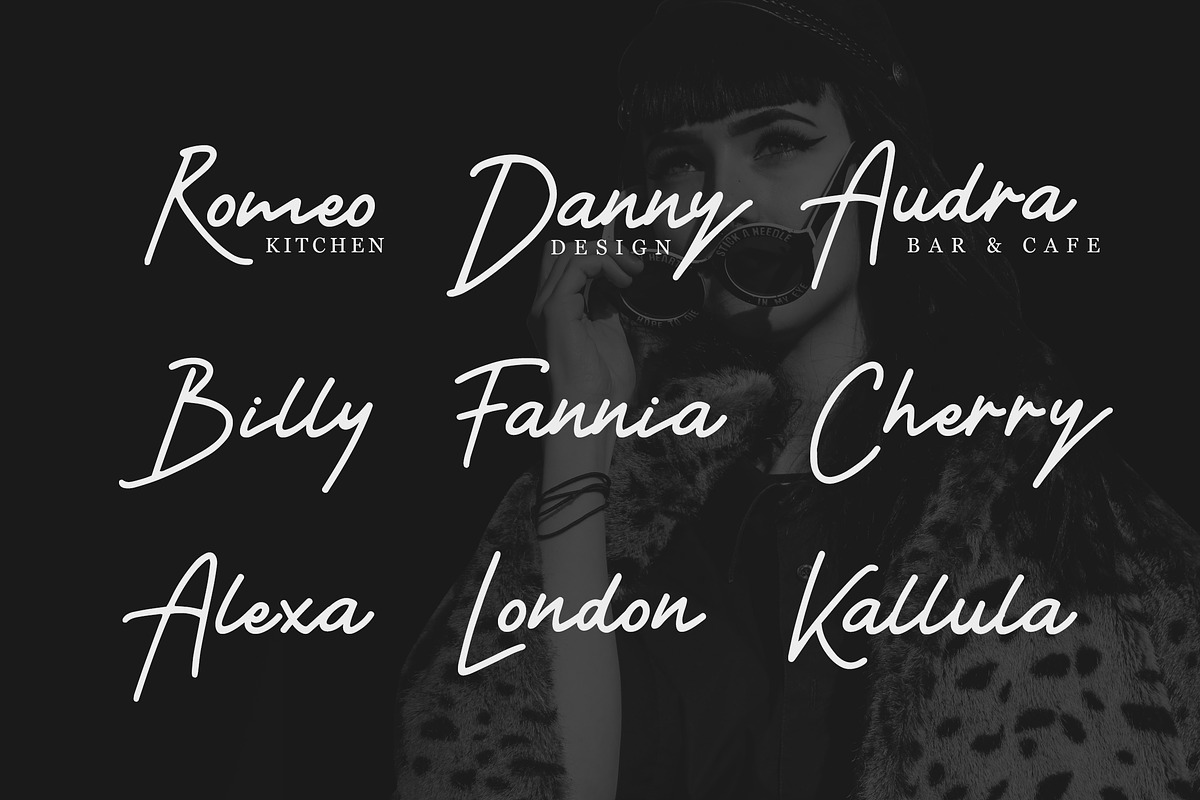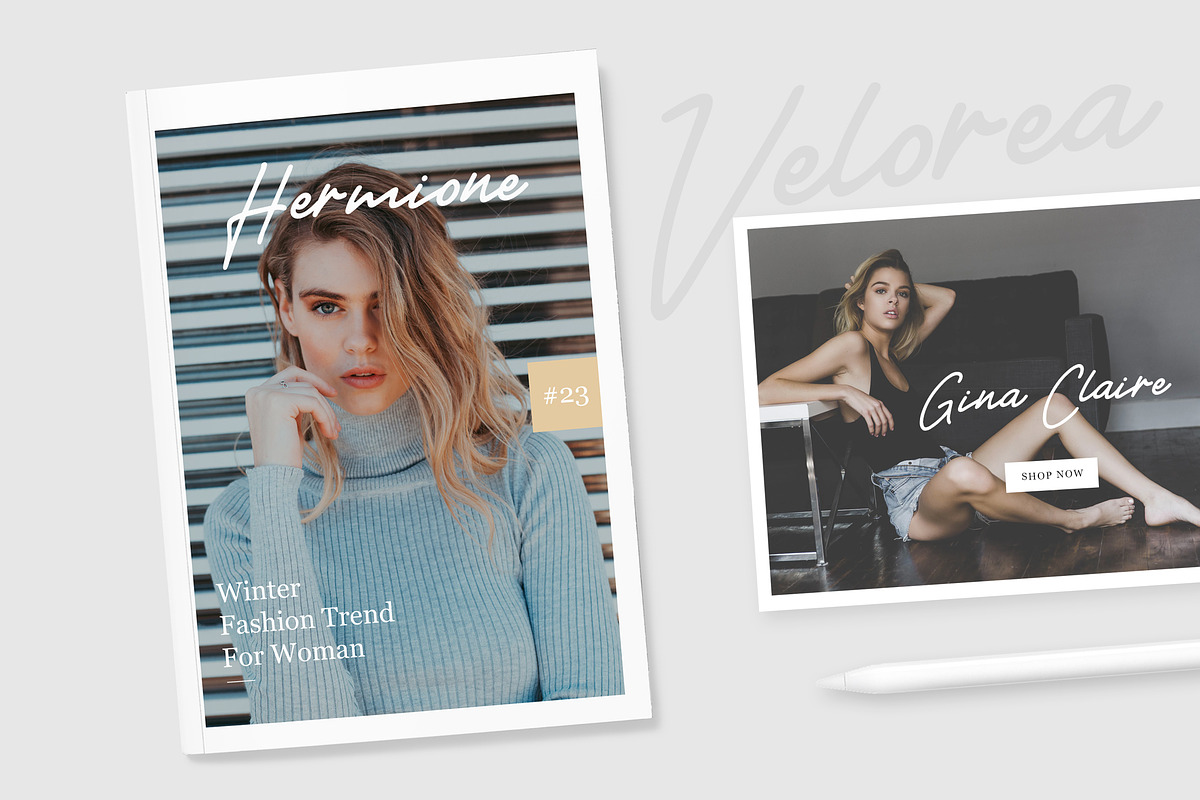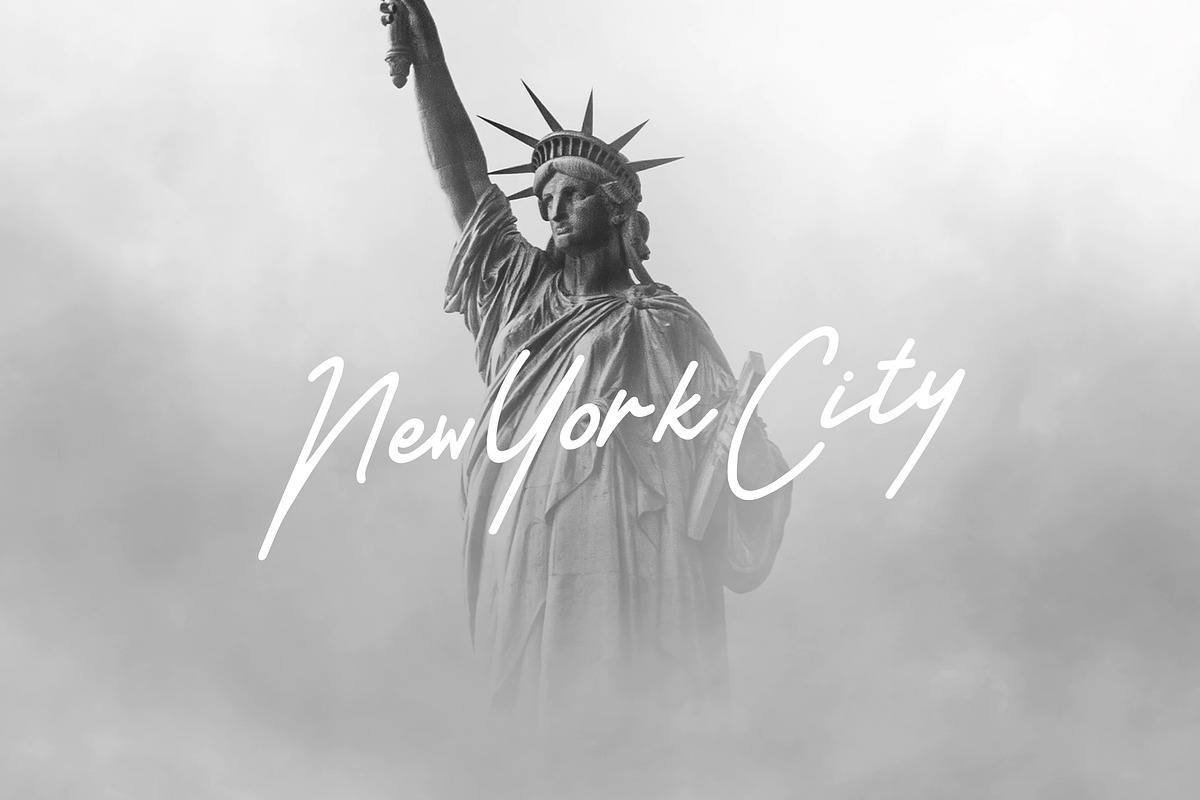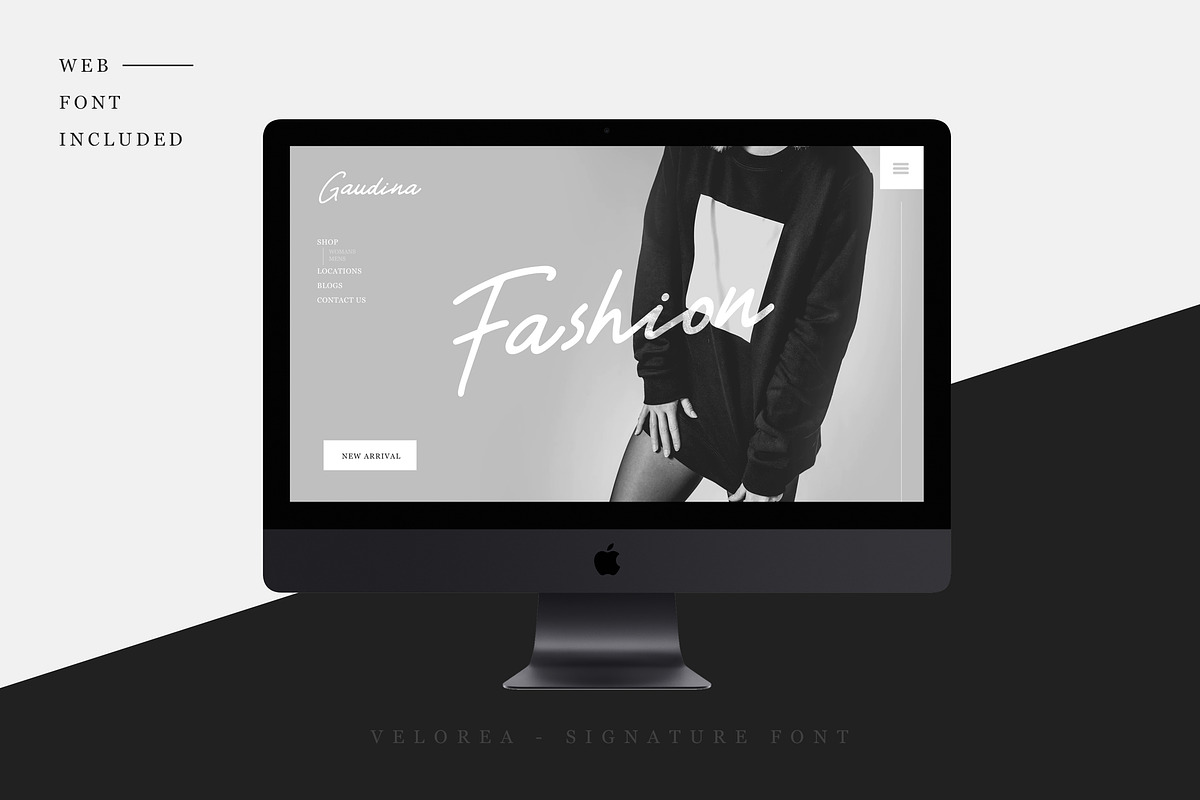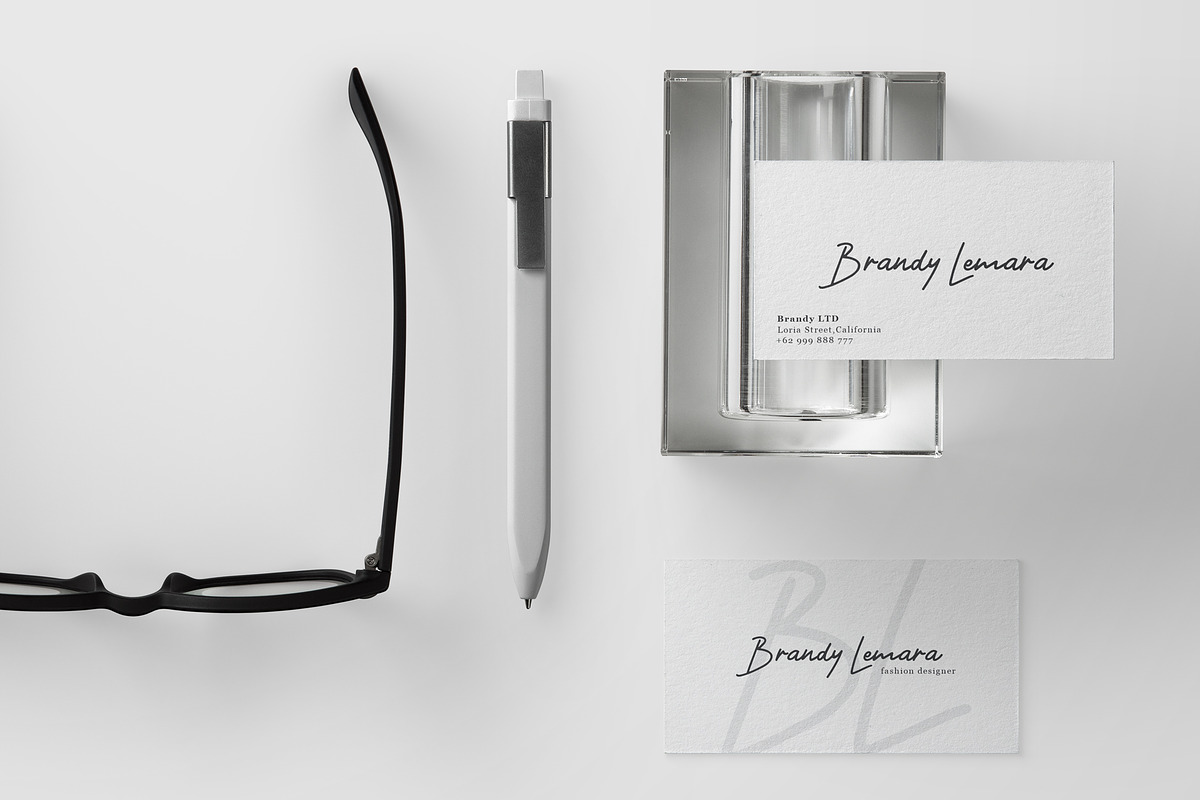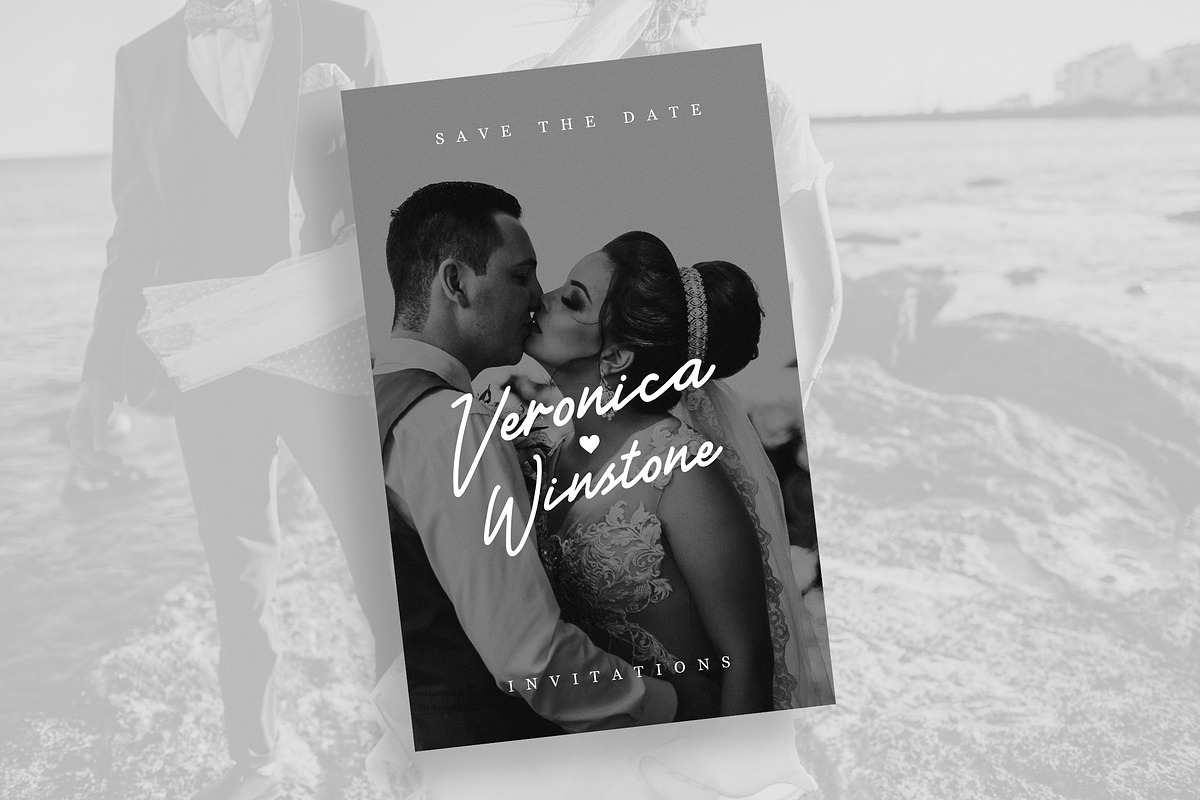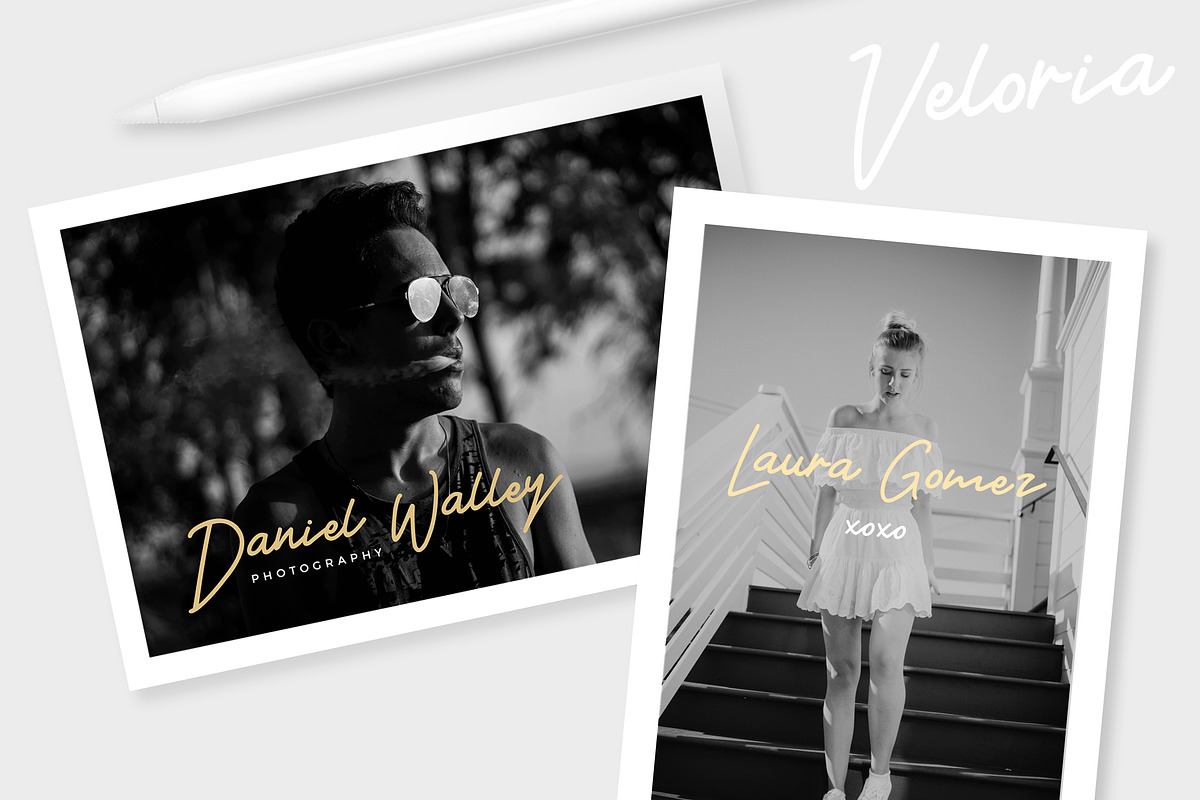
Velorea - Signature Font
Create a Extraordinary Typography / lettering results by using Velorea - Signature Font. Best match for logos, header, Titles, Prints & other Creative process possibilities.
Velorea - Signature Font by rubirubiko fits naturally into Branding, posters, packaging, typography.